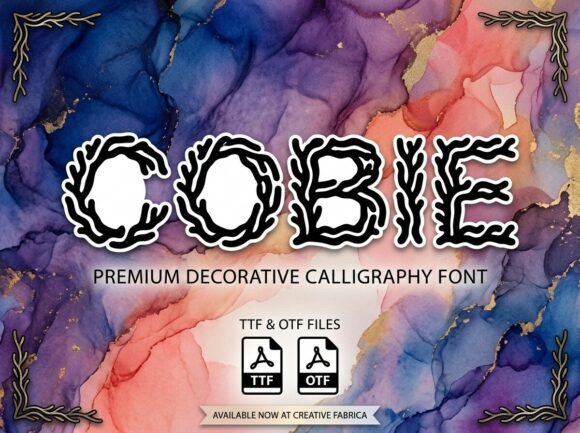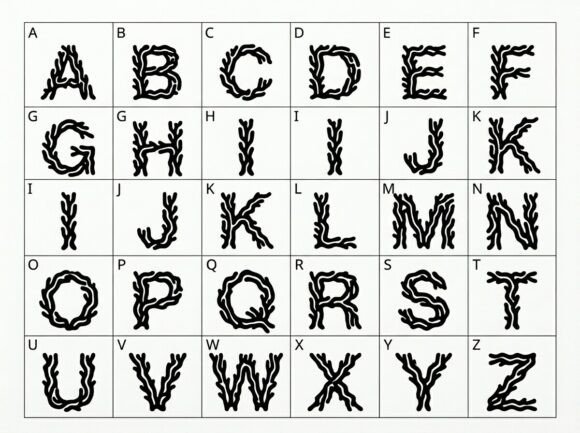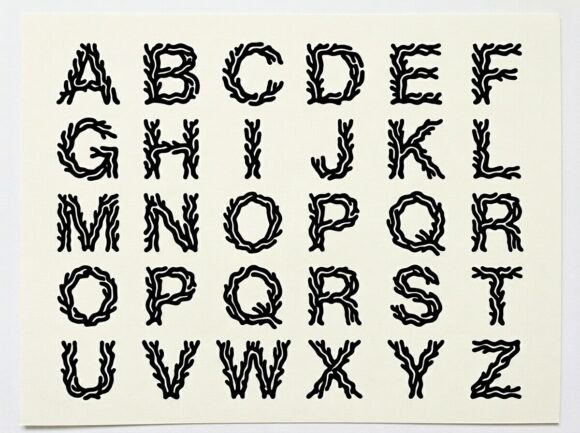
Cobie Font: A Mesmerizing Underwater World in Typeface Form
Imagine a font that transports you to the vibrant, thriving world of coral reefs, teeming with life and movement. Welcome to Cobie, a premium organic display font that embodies the intricate beauty of the ocean’s depths. Inspired by the rhythmic, branching structures of coral reefs, Cobie is a typeface that will revolutionize the way you approach marine conservation branding, aquatic-themed editorial headers, eco-friendly packaging, and tropical event posters.
The Inspiration Behind Cobie
Cobie draws its inspiration from the stunning, complex formations of coral reefs. The font’s unique design is characterized by intricate, interconnected letterforms that evoke the image of brain coral, with its distinctive texture and patterns. This natural, organic aesthetic gives Cobie a captivating visual appeal that is both mesmerizing and unforgettable.
Key Features of Cobie Font
- Complex, Interconnected Letterforms: Cobie’s letterforms are intricately connected, creating a sense of fluid motion and natural growth.
- Brain-Coral Texture: The font’s texture is reminiscent of brain coral, adding a unique, organic feel to your designs.
- Bold Outlines: Cobie’s bold outlines give it a striking, eye-catching quality that’s perfect for headlines and titles.
- Intricate Internal Patterns: The font’s internal patterns add an extra layer of visual interest, making Cobie a standout choice for designers.
Perfect for Marine Conservation Branding and More
Cobie’s unique design makes it an ideal choice for a variety of applications, including:
- Marine Conservation Branding: Cobie’s oceanic inspiration and natural aesthetic make it a perfect fit for marine conservation branding and awareness campaigns.
- Aquatic-Themed Editorial Headers: Add a touch of the ocean to your editorial content with Cobie’s captivating, underwater-inspired headers.
- Eco-Friendly Packaging: Cobie’s organic, handcrafted feel makes it an excellent choice for eco-friendly packaging designs that want to convey a sense of sustainability and natural elegance.
- Tropical Event Posters: Transport your audience to a tropical paradise with Cobie’s vibrant, attention-grabbing typography.
What Sets Cobie Apart
Cobie is more than just a font – it’s an experience. Its unique blend of natural, organic design and bold, eye-catching typography makes it a standout choice for designers looking to add a touch of the extraordinary to their work. With Cobie, you can:
- Add a Touch of Handcrafted Artisanal Grace: Cobie’s intricate design and natural aesthetic give it a handcrafted, artisanal feel that’s perfect for designers looking to add a touch of elegance to their work.
- Infuse Your Designs with Imagination and Flair: Cobie’s imaginative, nature-inspired design makes it an excellent choice for designers looking to add a touch of whimsy and creativity to their work.
Cobie is a premium organic display font that will transport your designs to the mesmerizing world of the deep. With its intricate, interconnected letterforms, brain-coral texture, and bold outlines, Cobie is the perfect choice for designers looking to add a touch of the extraordinary to their work. Whether you’re working on marine conservation branding, aquatic-themed editorial headers, eco-friendly packaging, or tropical event posters, Cobie is sure to deliver a legendary and unforgettable personality to your visual identity.